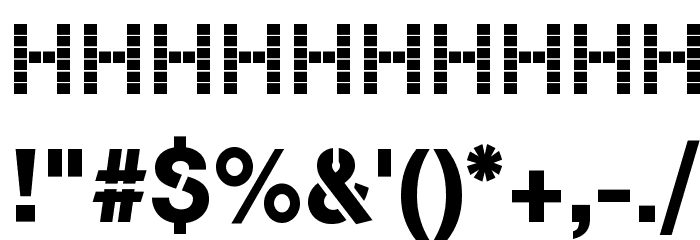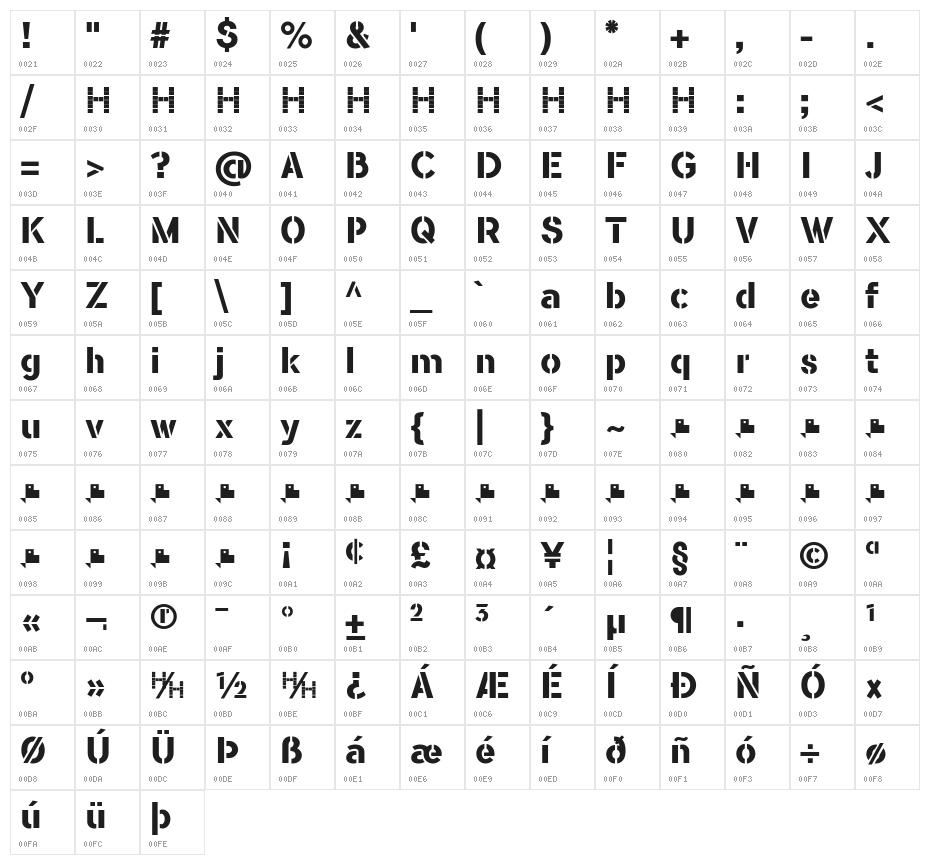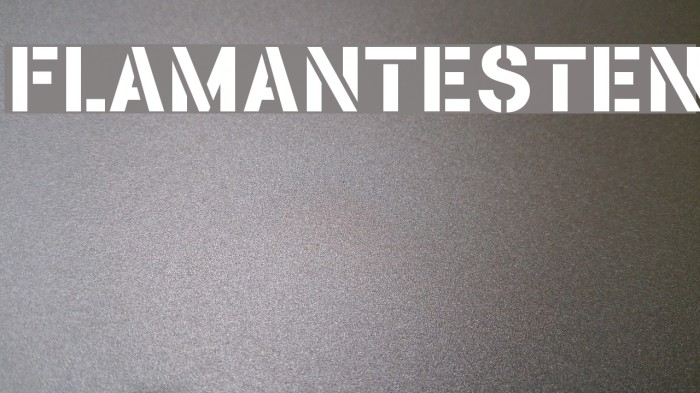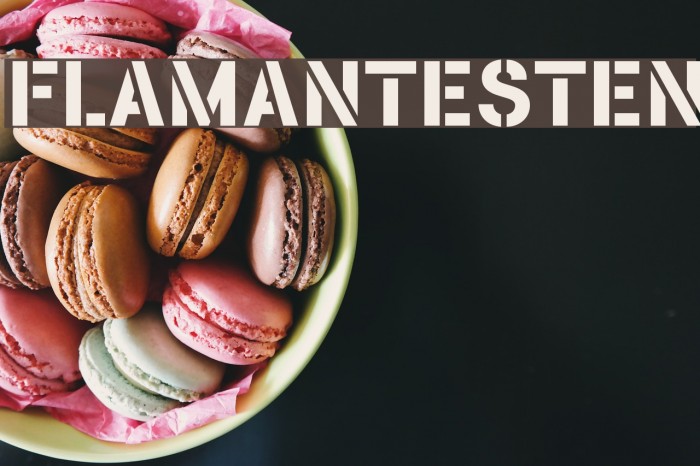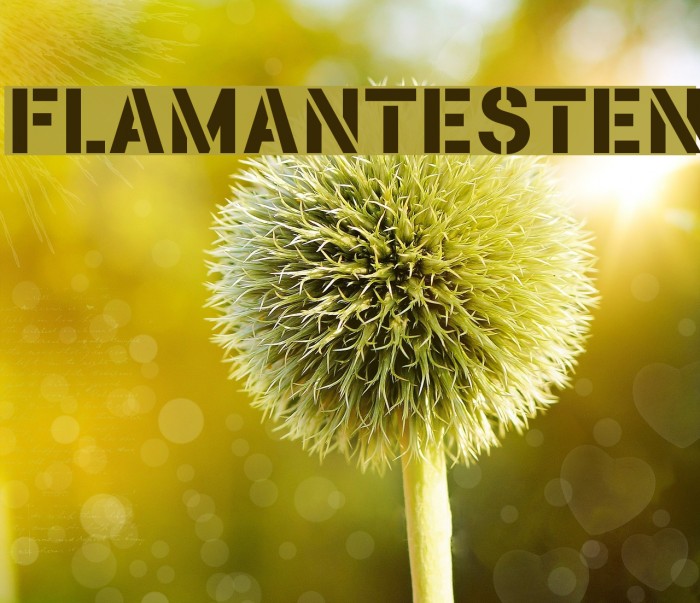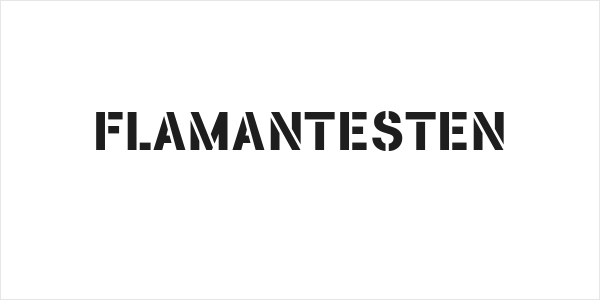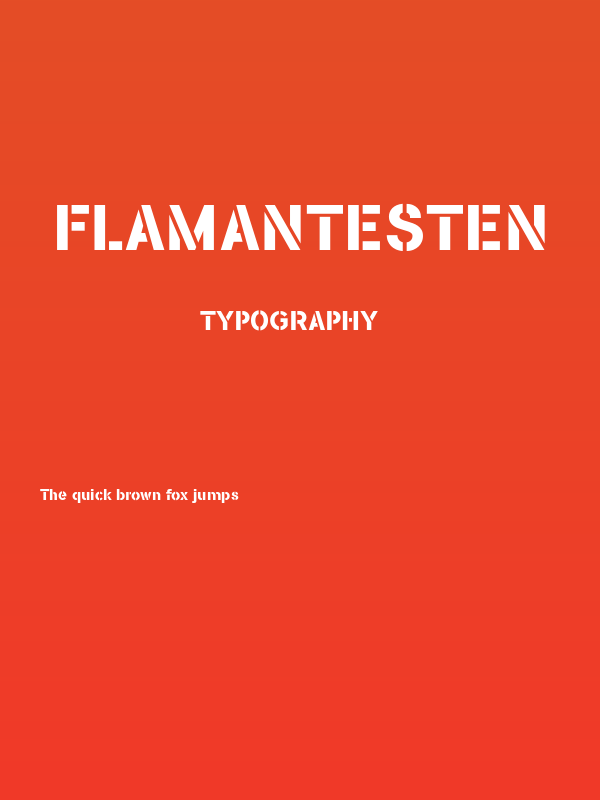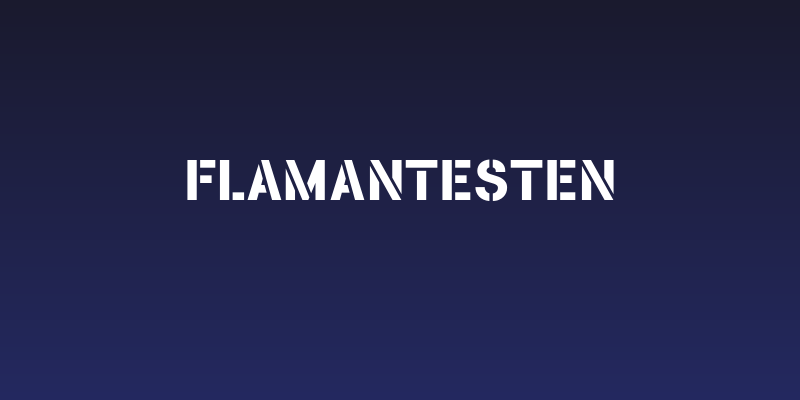
FLAMANTESTEN Font
FLAMANTESTEN Description
This font features a bold, geometric design with strong, angular lines and a distinct stencil-like appearance. The characters are constructed with uniform thickness, creating a robust and impactful visual presence. The uppercase and lowercase letters maintain a consistent style, emphasizing the boldness and modernity of the typeface. The numbers and special characters follow the same design principles, ensuring a cohesive look across all elements. The font's unique cut-out sections within each character add a dynamic and industrial feel, making it stand out in any design context.
| Proposed Projects | Ideal for branding, posters, signage, and any project requiring a strong, modern aesthetic. |